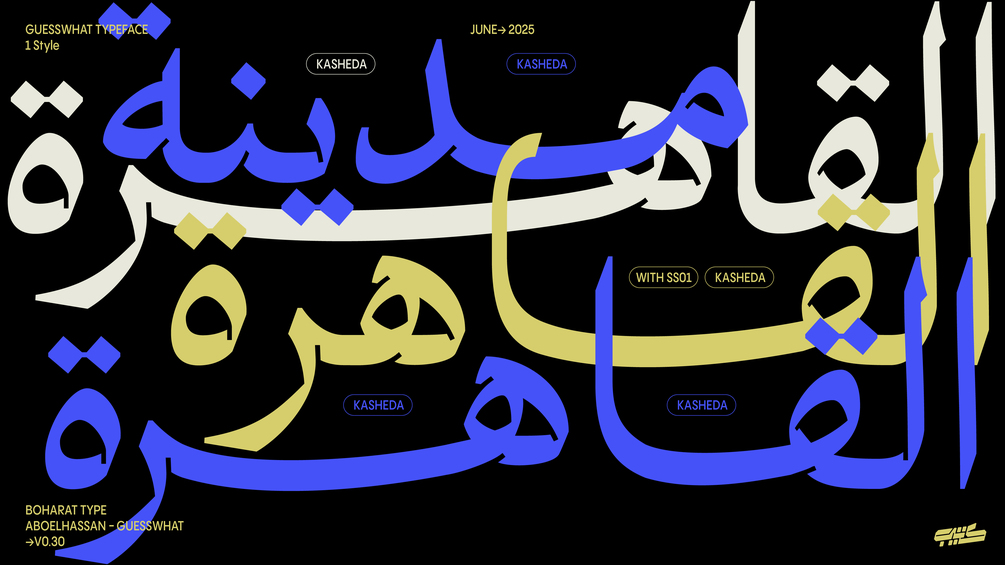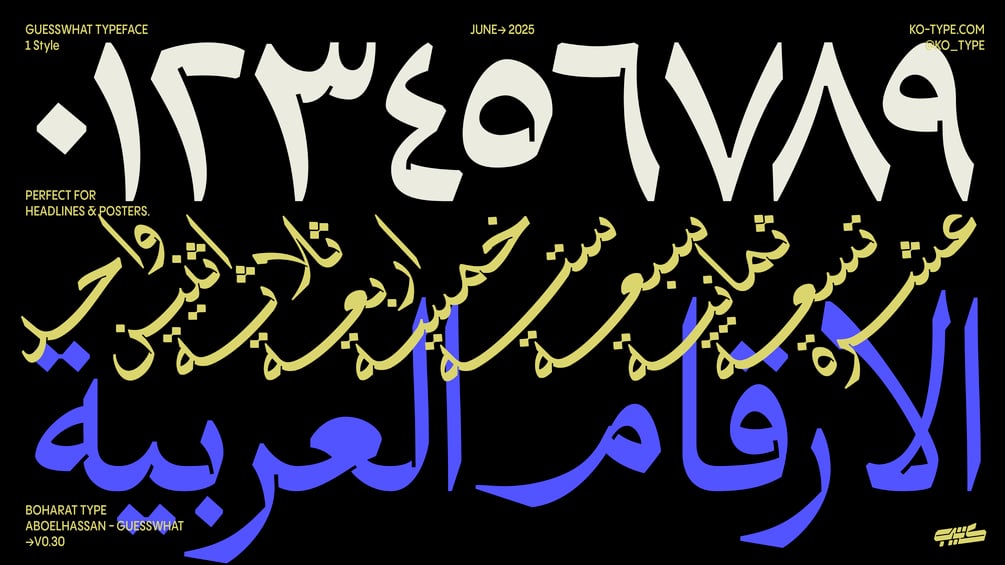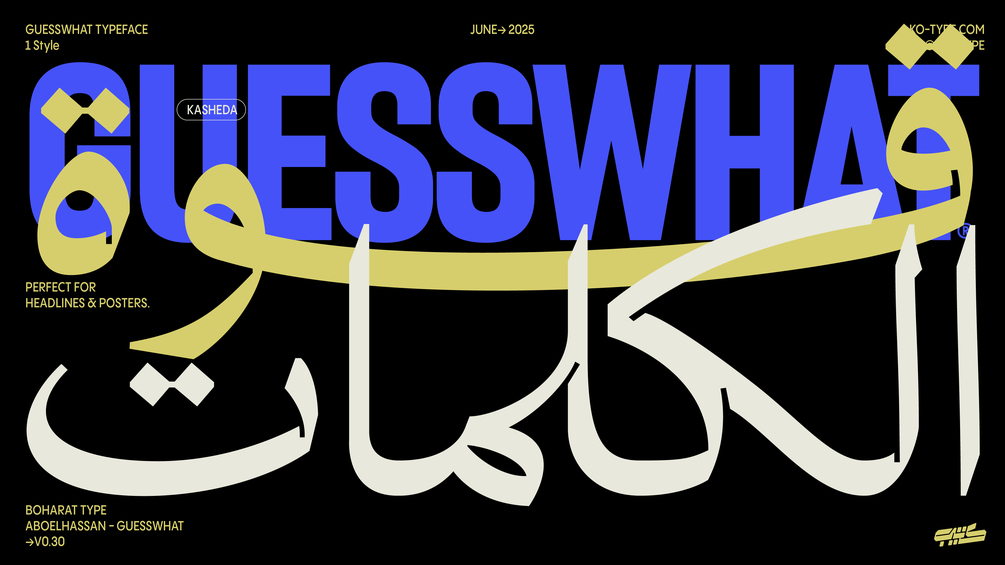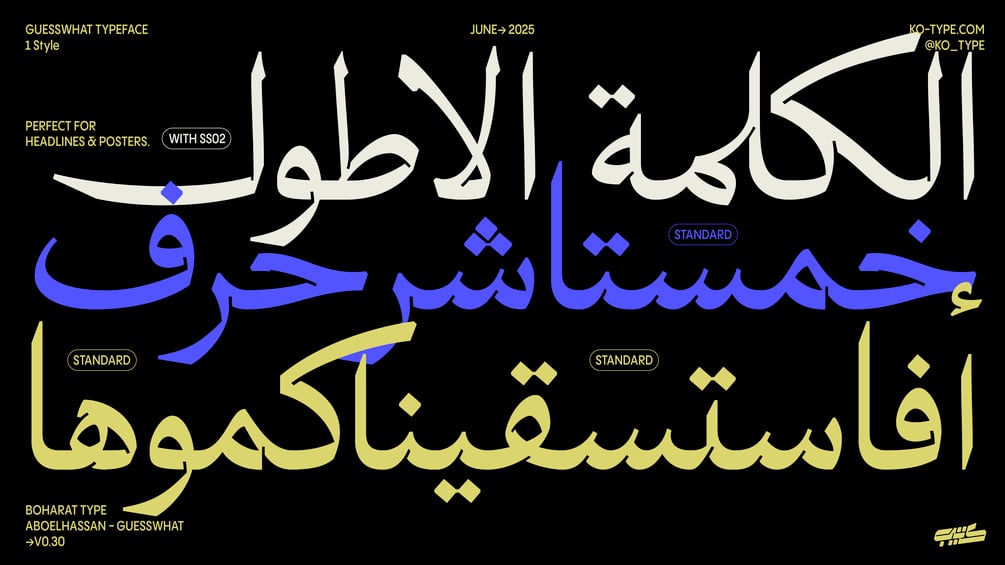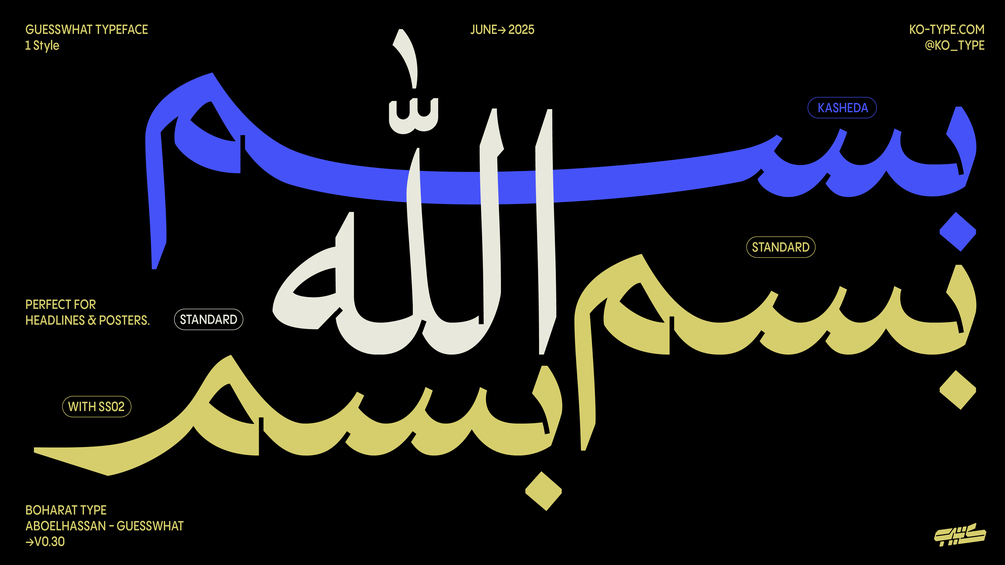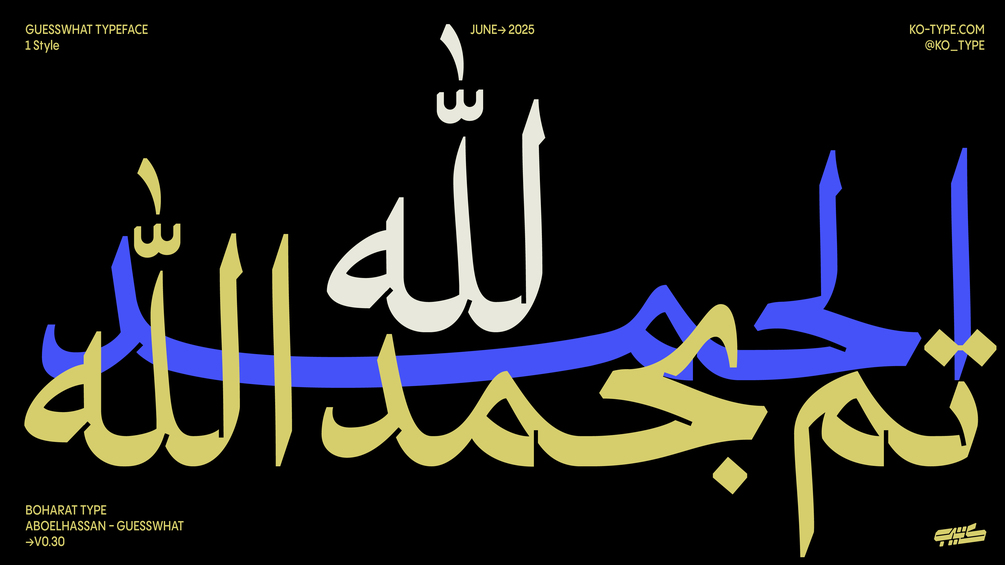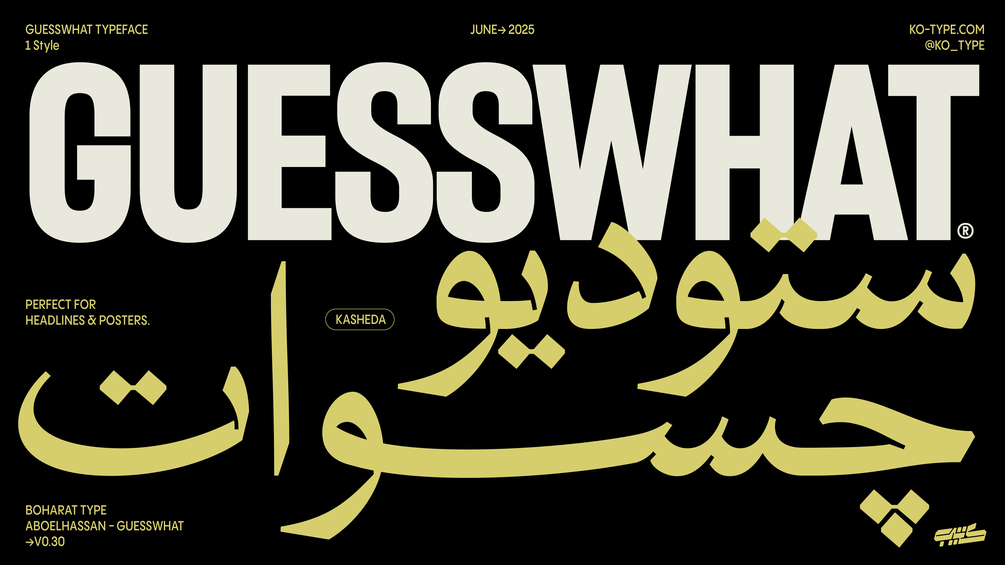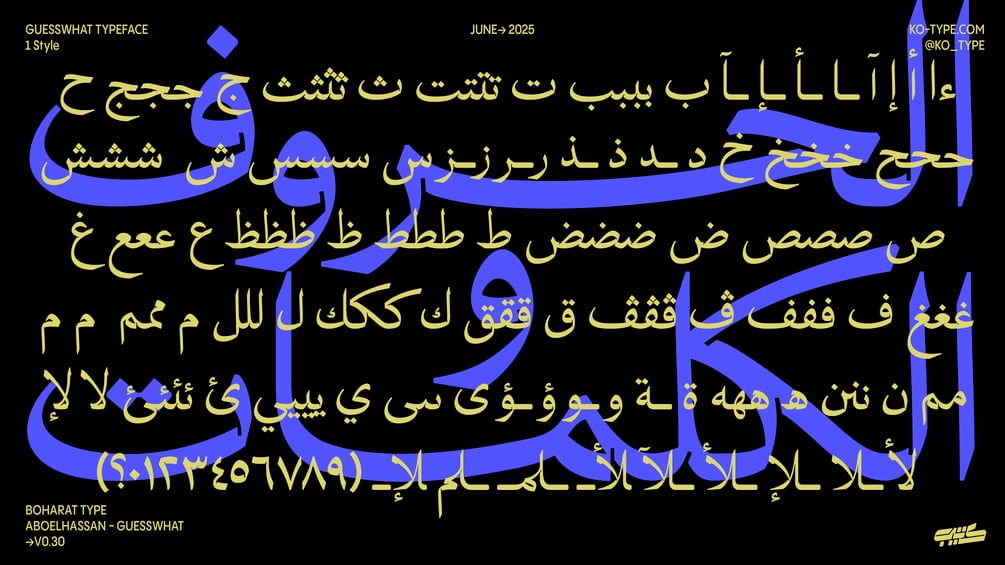
Guesswhat Typeface
Guesswhat typeface
Guesswhat Typeface is an Arabic typeface that draws inspiration from the elegance of traditional Naskh calligraphy. Designed as a core element of the visual identity for GUESSWHAT Studio, this typeface blends classical aesthetics with contemporary flexibility.
The font is enriched with a wide range of OpenType features, offering users dynamic control over layout and composition. One of its most distinctive characteristics is the use of cursive kashida, a hallmark of Arabic calligraphy, which plays a central role in shaping the font’s expressive style.
Guesswhat Typeface is tailored for impactful visual applications, making it ideal for posters, headlines, and bold brand statements. The font presentation demonstrates its versatility, showcasing how a single word can be rendered in multiple stylistic variations using the available OpenType features.